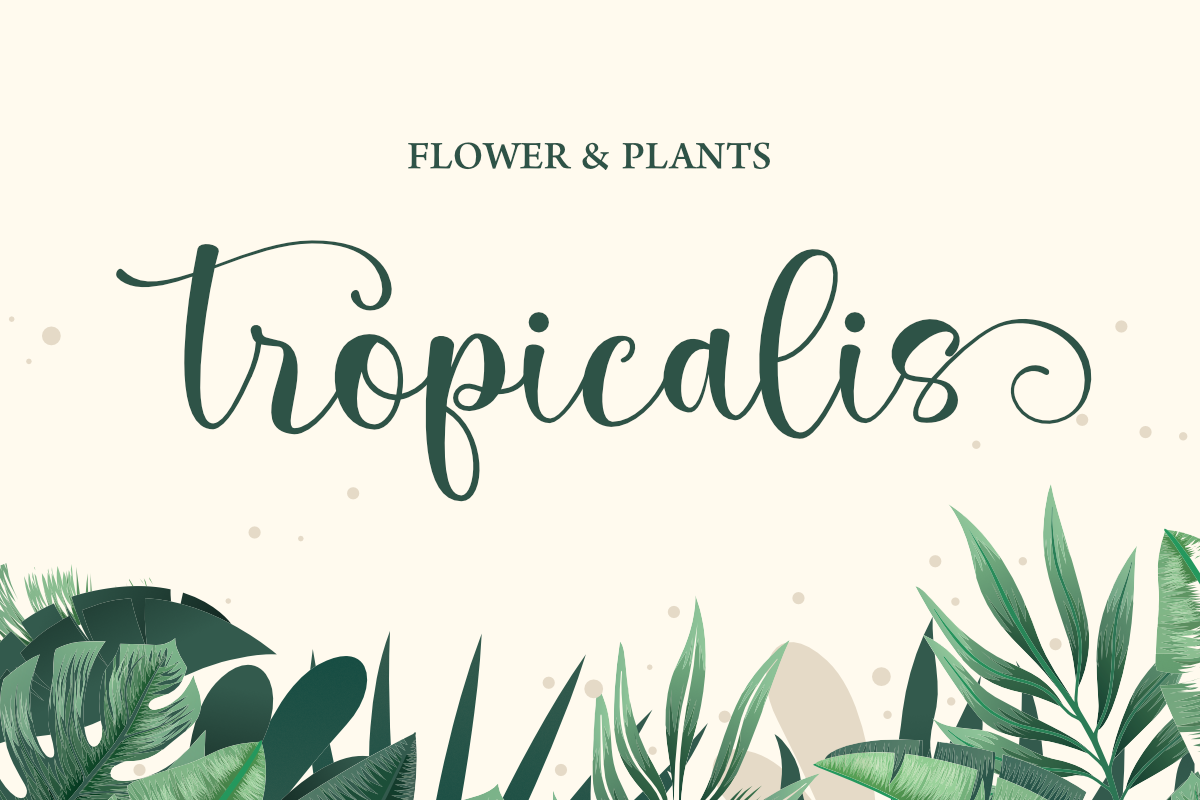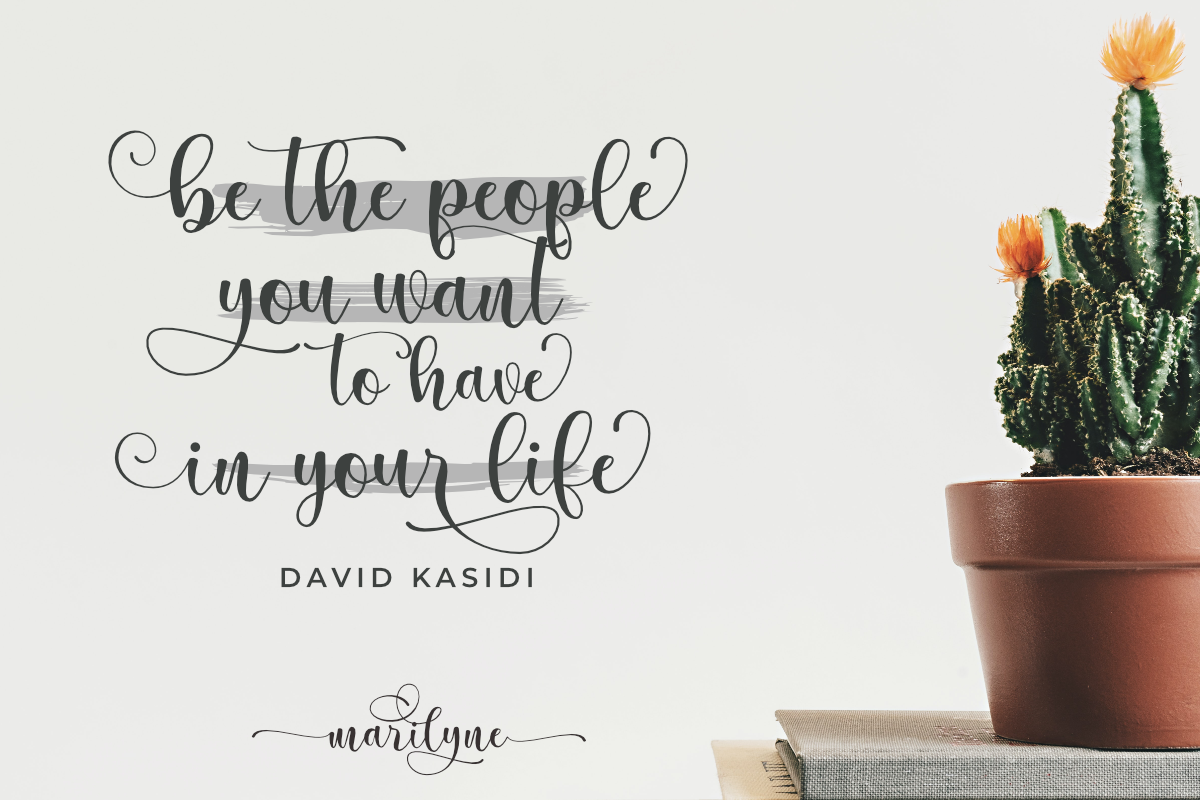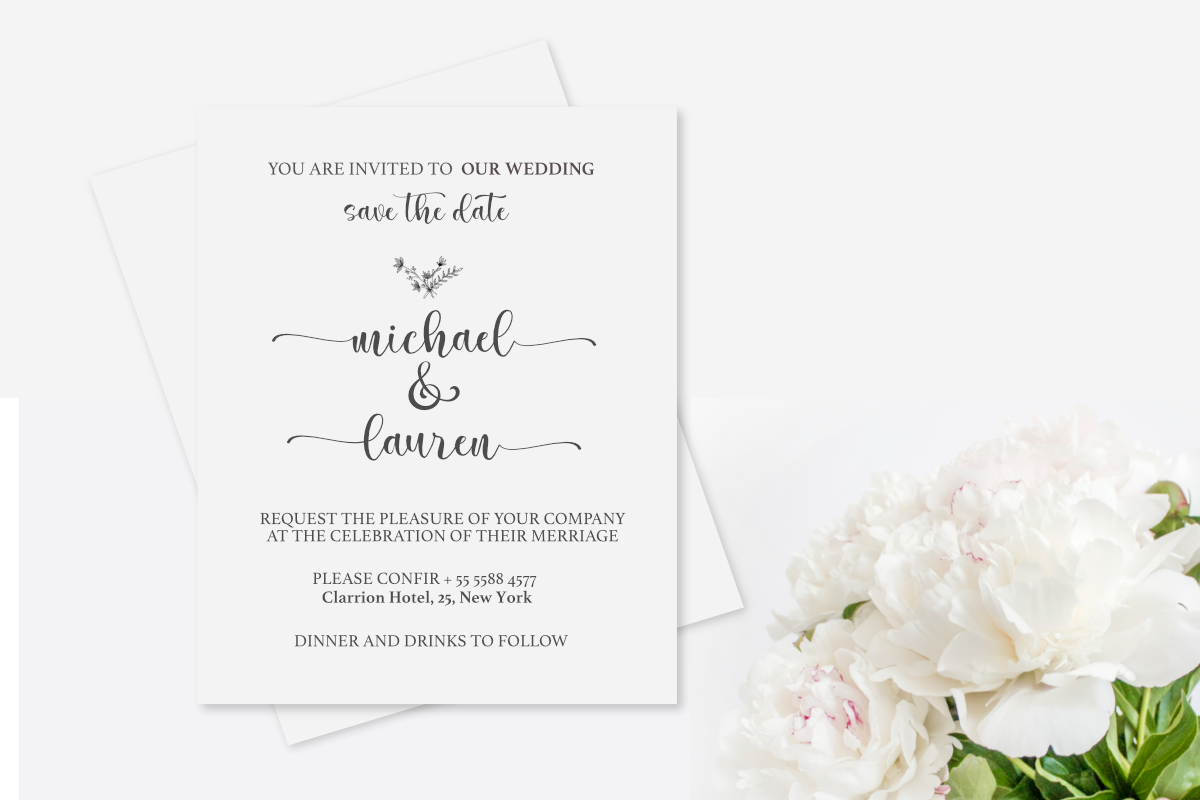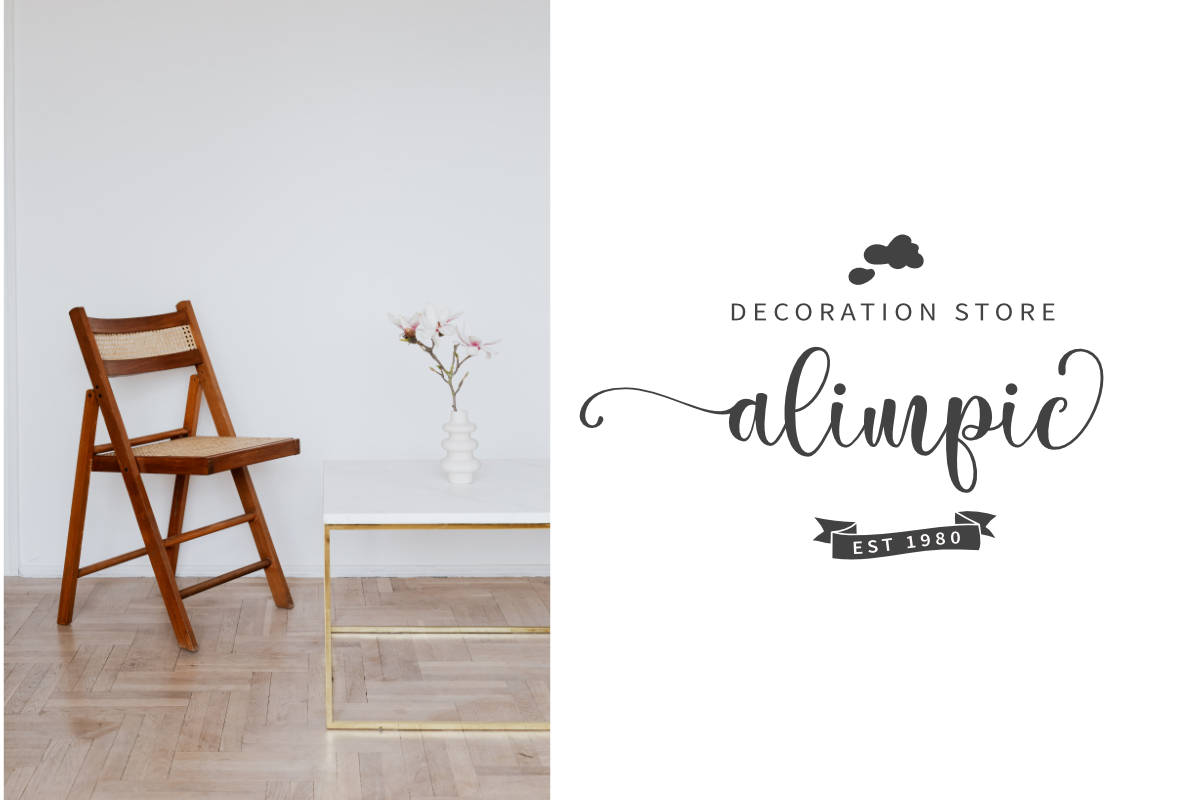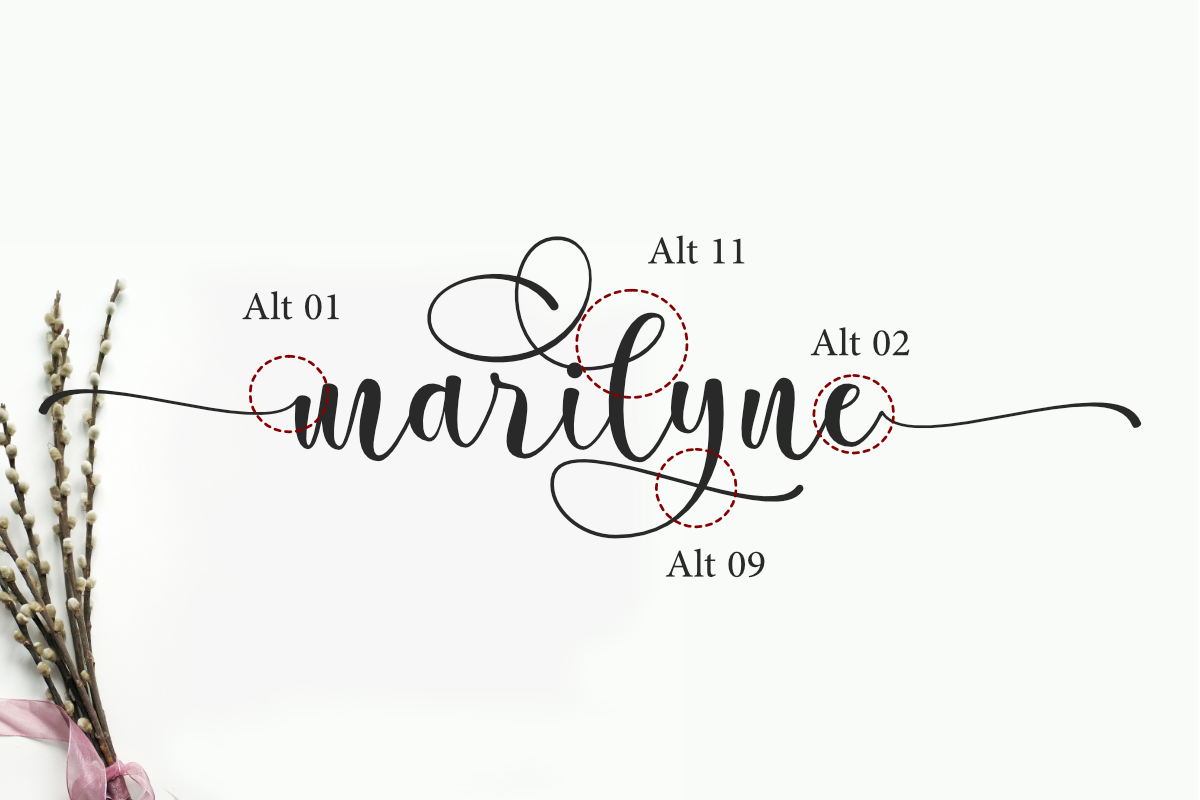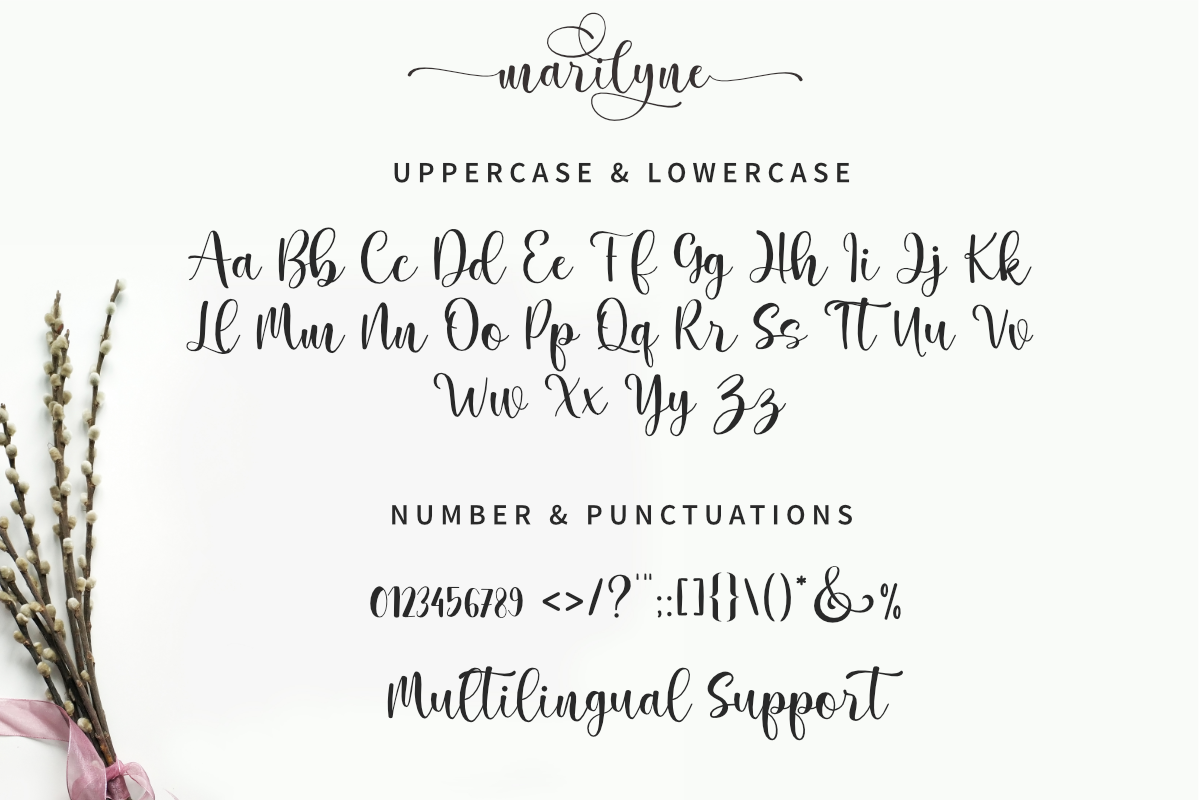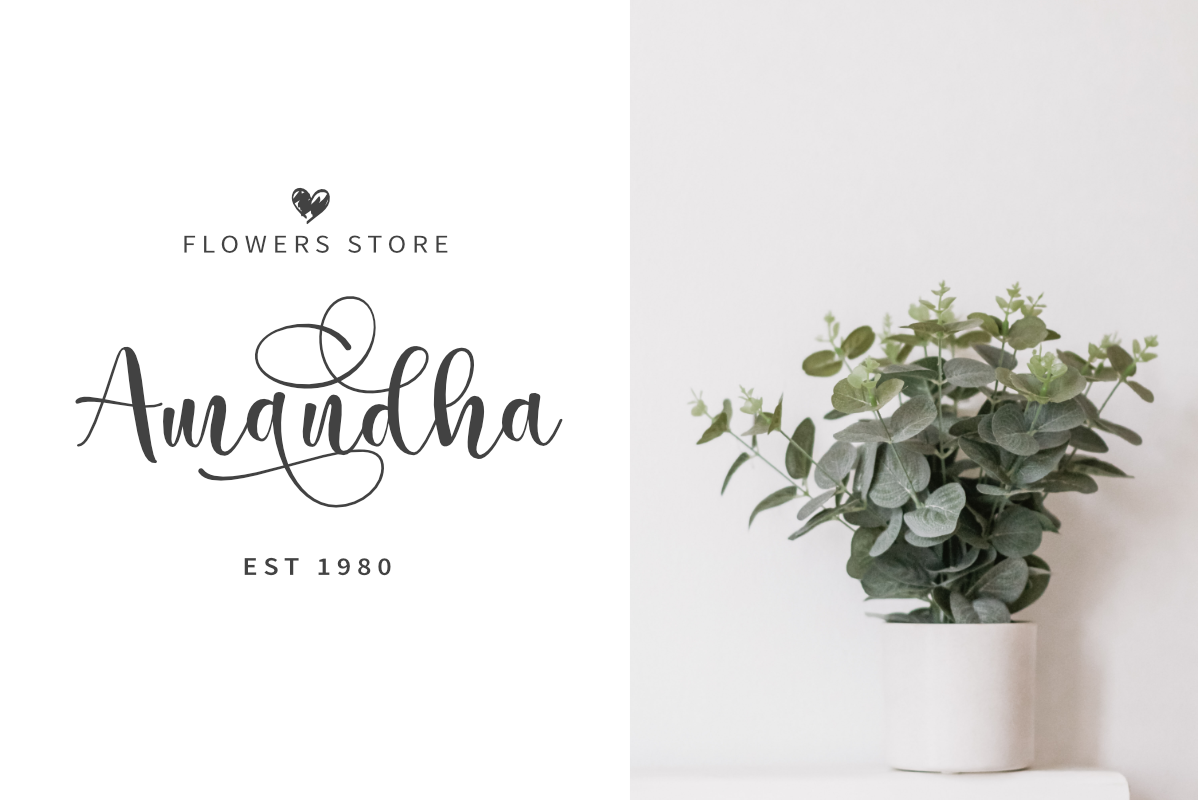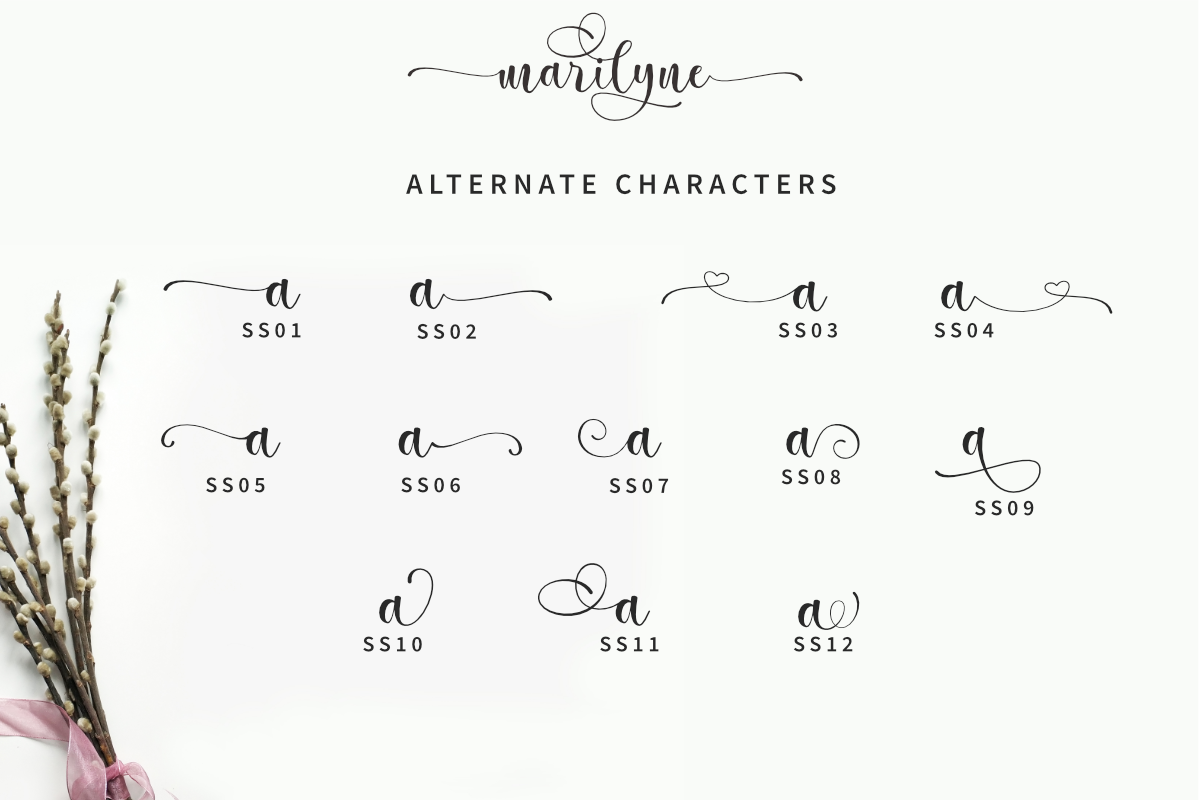
Marilyne - Modern Calligraphy
Marilyne is a modern calligraphy font with handwritten, sophisticated flows. It is full of hearts and glyphs. It is perfect for branding, wedding invites, and cards.
Marilyne includes a complete set of lovely and swash lowercase letters, multilingual symbols, numerals, punctuation, and ligatures. Also, it has: -short lowercase beginning and ending swashes (This is so perfect for invitations, and monograms) -long lowercase beginning and ending heart swashes.
Marilyne is a stylish and incredibly elegant script font. It looks stunning on wedding invitations, thank you cards, quotes, greeting cards, logos, business cards, and every other design which needs a handwritten touch. Marilyne Font, have 12 beginning and ending swashes in lowercase
The font has a smooth texture, so it would be perfect for all types of printing techniques you can do embroidery, laser-cut, or gold foil, and it is ideal for cutting.
- 312 Alternates Characters